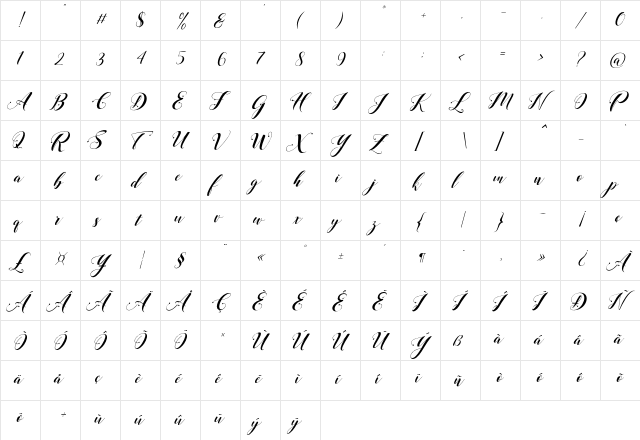
Loveya Script Italic Regular
Design Context for Loveya Script Italic Typeface
Loveya Script Italic brings a calligraphic fluidity to the page — its connecting strokes and expressive curves give it an unmistakably human quality.
Font Pairing: Combine Loveya Script Italic with a simple geometric sans for maximum contrast — the tension between flowing curves and clean structure is a classic typographic pairing.
Pro Tip: Pair Loveya Script Italic with a clean sans-serif for supporting text. The contrast between fluid script and geometric structure creates an elegant typographic hierarchy.